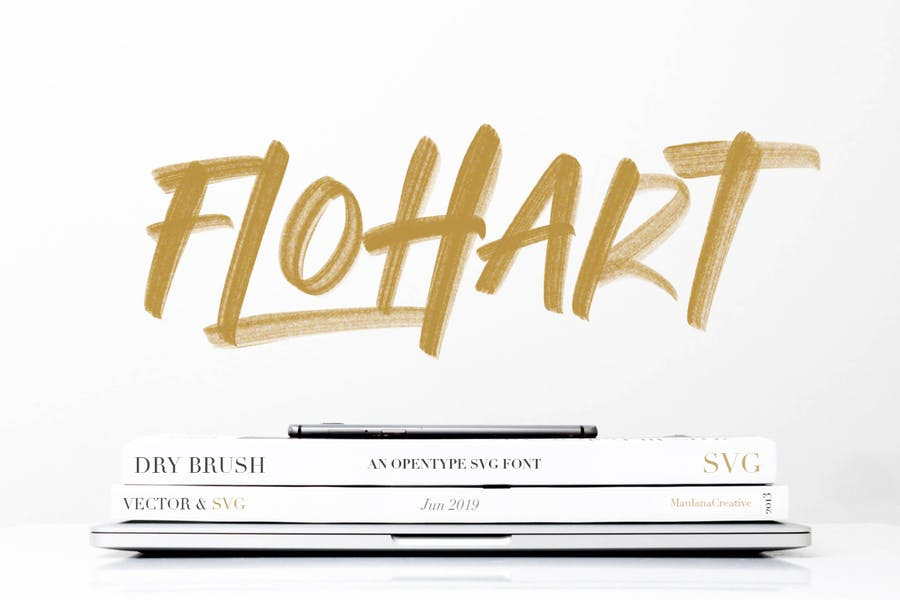
Flohart SVG Brush Font
Flohart SVG Brush Font is perfect for artistic studio branding, creative workshop signage, expressive poster designs, bohemian boutique materials, artistic social media graphics, creative agency logos, imaginative book covers, inspired greeting cards, artistic event promotions, and expressive lifestyle brands.
Flohart SVG Brush Font creates excitement because it embodies the spontaneous creativity and artistic expression of contemporary brush artistry with its flowing stroke letterforms and painter-inspired character design. The font's organic movement and artistic flair instantly convey authentic creativity and expressive freedom, making any brand appear genuinely artistic and creatively inspired. Its carefully crafted brush details and expressive character create an immediate sense of artistic authenticity that captivates audiences seeking creative experiences, artistic expression, and products that celebrate the transformative power of authentic art and creative freedom.
The Flohart SVG Brush Font family includes multiple weights and styles: Regular, Bold, Light, Medium, Italic, Condensed, Extended, Artistic, Expressive, and Creative versions. Each variant maintains the font's signature brush character while offering different levels of artistic intensity and creative styling suitable for various artistic and creative applications.
This expressive typeface brings the authentic spirit of contemporary brush artistry into modern creative design with remarkable artistic integrity and creative appeal. Flohart SVG Brush Font Free Download provides creative brands and artistic organizations with access to premium brush typography that embodies the essence of artistic expression and creative authenticity. The font's artistic design and creative quality make it ideal for businesses seeking to establish meaningful connections with creative audiences who appreciate authentic artistic expression and genuine creativity. Whether you're developing branding for art studios, creating materials for creative workshops, designing promotional content for artistic events, or producing marketing materials for creative enterprises, this font delivers the artistic atmosphere that resonates with audiences seeking genuine creativity, artistic inspiration, and the expressive freedom that comes from authentic artistic expression. Its versatile brush design ensures outstanding performance across both traditional artistic mediums and dynamic digital creative platforms while maintaining the spontaneous energy of authentic brush artistry. The font excels in applications requiring artistic credibility and creative appeal. Creative industry professionals appreciate its ability to convey authentic artistic expression while remaining highly functional for various creative communications and artistic promotional materials. The comprehensive character set includes artistic symbols and extensive international language support, making it perfect for global creative brands and international artistic organizations seeking to communicate authentic creativity, artistic excellence, and expressive freedom to diverse worldwide audiences who embrace artistic expression, seek creative inspiration, and value the transformative power of authentic art that speaks to the human soul and celebrates the unlimited potential of creative imagination and artistic vision in transforming ideas into beautiful, meaningful expressions.